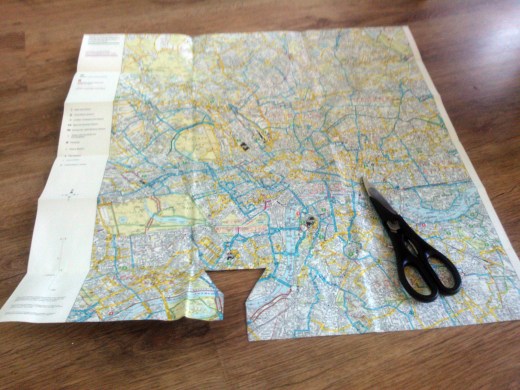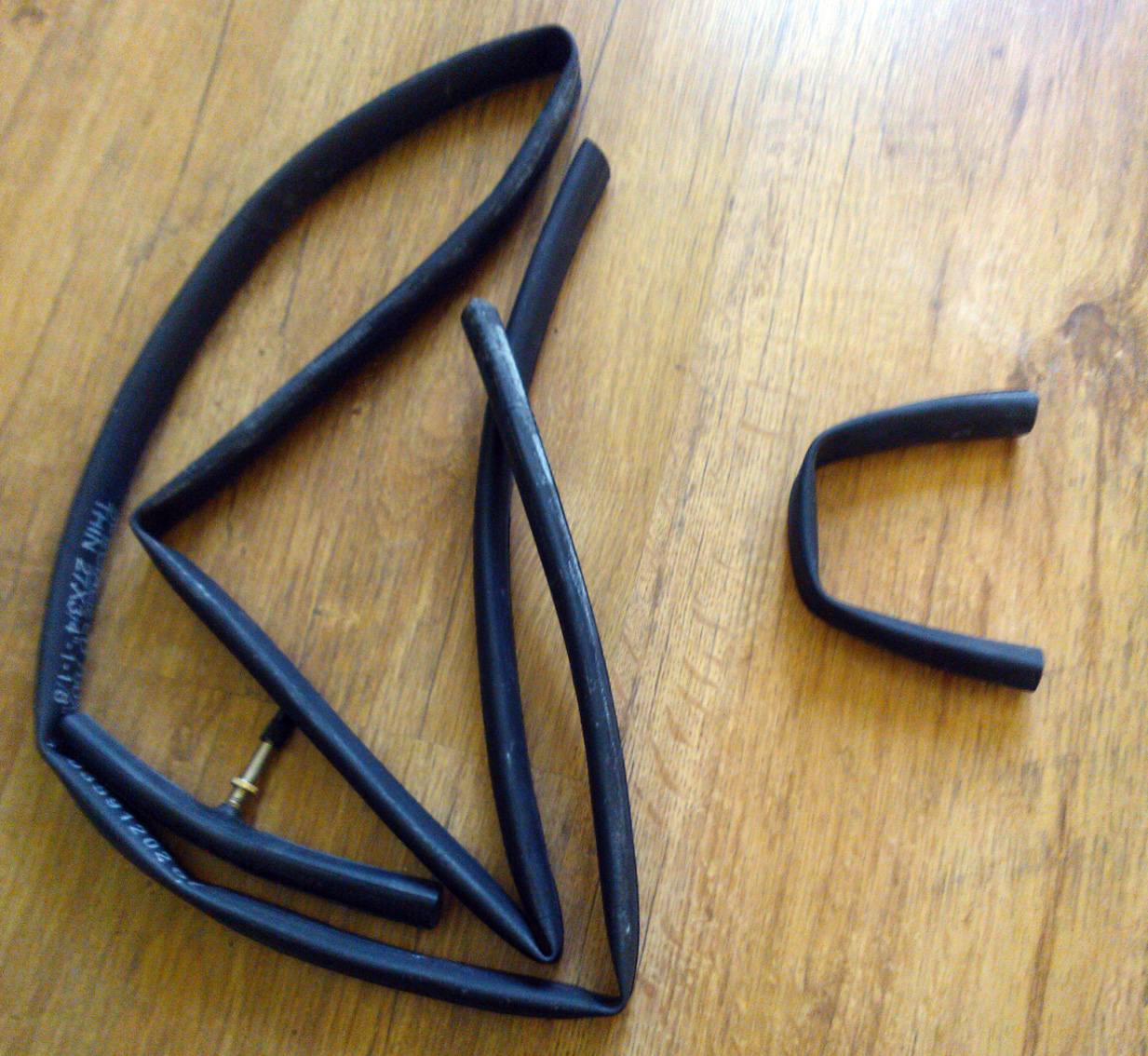
‘Cycle’ by Angus Montgomery
“I cycle in London almost every day, it’s how I’ve learned to navigate the city and discover how it all connects together.
“For my Typetasting piece, I made the word ‘Cycle’ using bits of old bike paraphernalia. The ‘Cs’ are made from a bit of inner tube and cycling scarf, I cut into a bike map to make the ‘Y’, a modified reflector snap-band forms the ‘L’ and a partially opened multi-tool forms a rather clumsy ‘E’.”
“I’ve never been particularly skilled at drawing or typography (my hand-writing is almost completely illegible) but I really enjoyed the collage-style nature of this Typetasting piece, coming up with different bike-related bits for each letter and making them all fit together.”
‘Cycle’ by Angus Montgomery is one of the words that will be displayed at Type Tasting with the London Design Festival 2013 at the V&A.